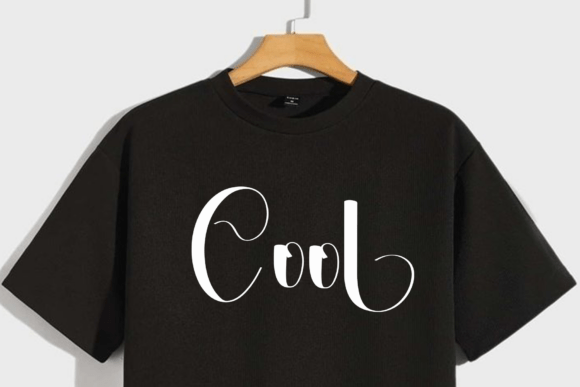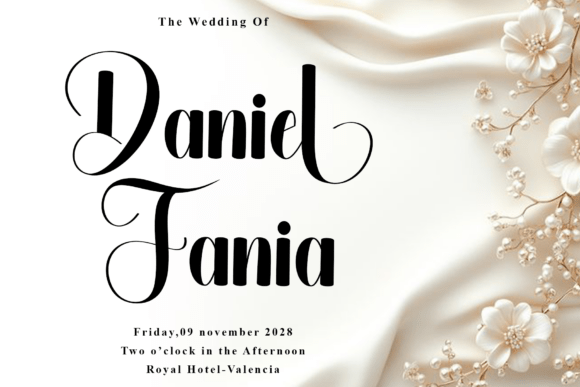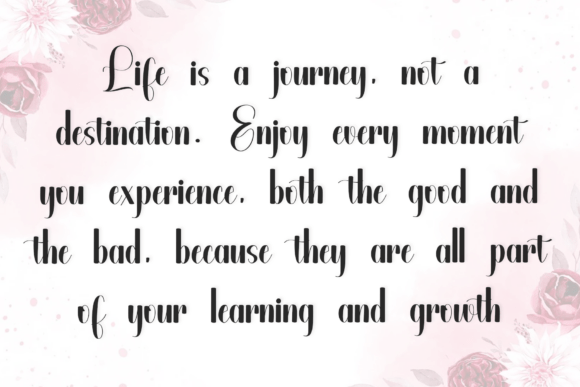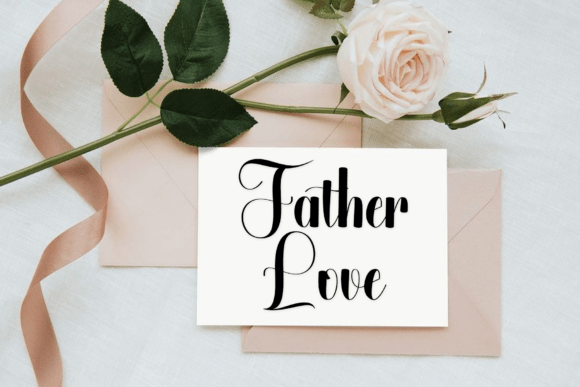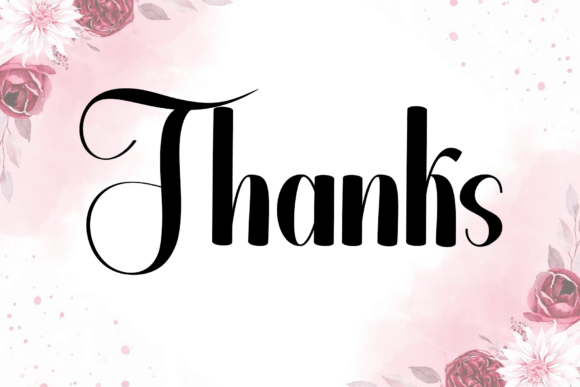
Babydoll Font: A Luxurious Handwritten Script Font for Elegant Designs
Are you a designer or crafter looking for a font that combines calligraphic elegance with whimsical charm? Look no further than Babydoll, a luxurious handwritten script font that is sure to elevate your visual storytelling. With its flowing swashes, delicate ligatures, and refined letterforms, Babydoll captures the quiet beauty of winter with festive charm, making it perfect for holiday cards, wedding invitations, premium packaging, branding, and editorial headlines.
The Characteristics of Babydoll Font
Babydoll font features high-contrast strokes and fluid curves that bring a romantic, decorative flair to any design. Its ornate yet versatile design makes it ideal for creatives seeking a blend of elegance and expressiveness. The font’s refined letterforms and delicate ligatures ensure that it remains legible, even in smaller sizes, making it perfect for a wide range of applications.
What Makes Babydoll Font Special?
So, what sets Babydoll apart from other fonts? Here are a few key features that make it a standout:
- High-Contrast Strokes: The font’s high-contrast strokes add a touch of sophistication and elegance to any design.
- Flowing Swashes: Babydoll’s flowing swashes add a whimsical touch to any design, making it perfect for holiday cards, wedding invitations, and other special occasions.
- Delicate Ligatures: The font’s delicate ligatures add a touch of refinement and elegance to any design.
Uses for Babydoll Font
Babydoll font is incredibly versatile, making it perfect for a wide range of applications, including:
- Holiday Cards: Add a touch of festive charm to your holiday cards with Babydoll’s flowing swashes and delicate ligatures.
- Wedding Invitations: Make your wedding invitations truly special with Babydoll’s elegant and refined letterforms.
- Premium Packaging: Elevate your premium packaging with Babydoll’s sophisticated and decorative flair.
- Branding: Use Babydoll to add a touch of elegance and whimsy to your brand’s visual identity.
- Editorial Headlines: Make your editorial headlines stand out with Babydoll’s refined letterforms and flowing swashes.
Why Choose Babydoll Font?
So, why should you choose Babydoll font for your next project? Here are a few reasons:
- Elegance and Whimsy: Babydoll combines elegance and whimsy in a way that’s hard to find in other fonts.
- Legibility: Despite its ornate design, Babydoll remains legible, even in smaller sizes.
- Versatility: The font is incredibly versatile, making it perfect for a wide range of applications.
- Timeless Style: Babydoll’s classic design ensures that it will remain timeless, even as design trends come and go.
In conclusion, Babydoll font is a luxurious handwritten script font that is sure to elevate your visual storytelling. With its flowing swashes, delicate ligatures, and refined letterforms, Babydoll captures the quiet beauty of winter with festive charm, making it perfect for holiday cards, wedding invitations, premium packaging, branding, and editorial headlines. Its PUA encoding makes it easy to use in any design software, and its high-contrast strokes and fluid curves add a touch of sophistication and elegance to any design. Whether you’re a designer or crafter, Babydoll is a great choice for anyone looking for a font that combines elegance and whimsy.